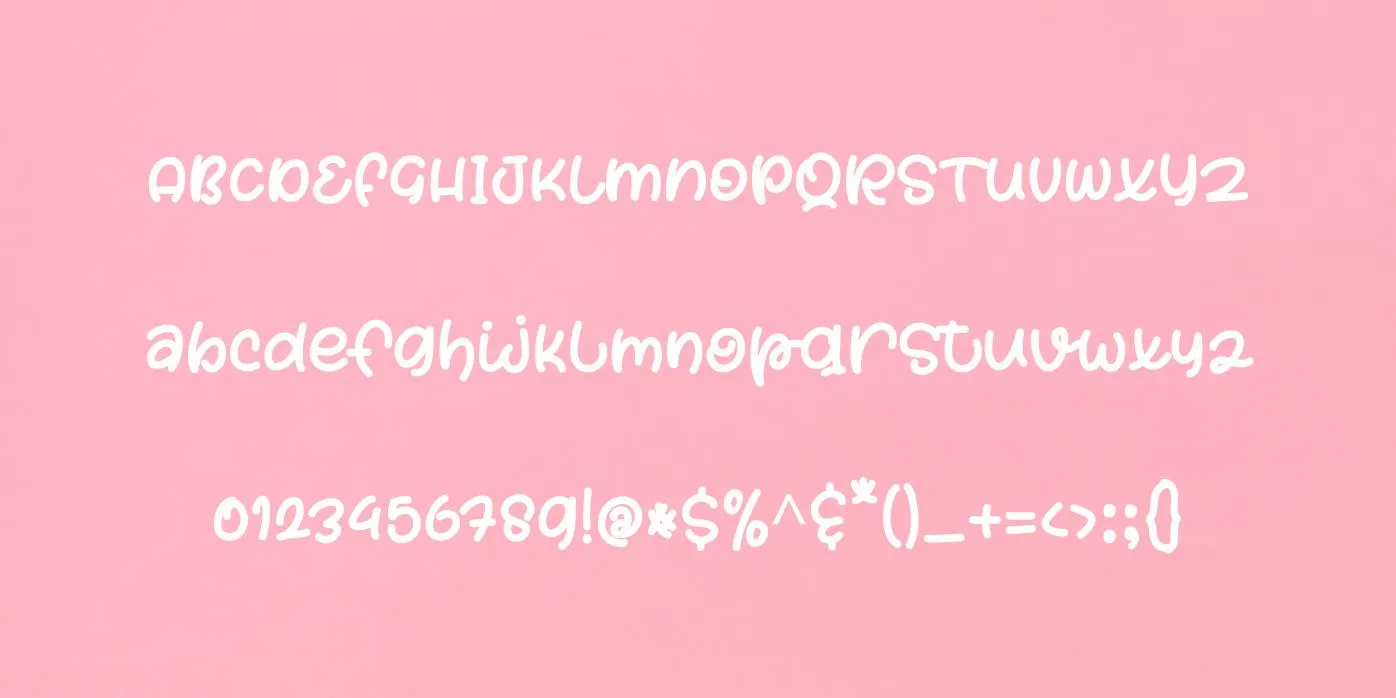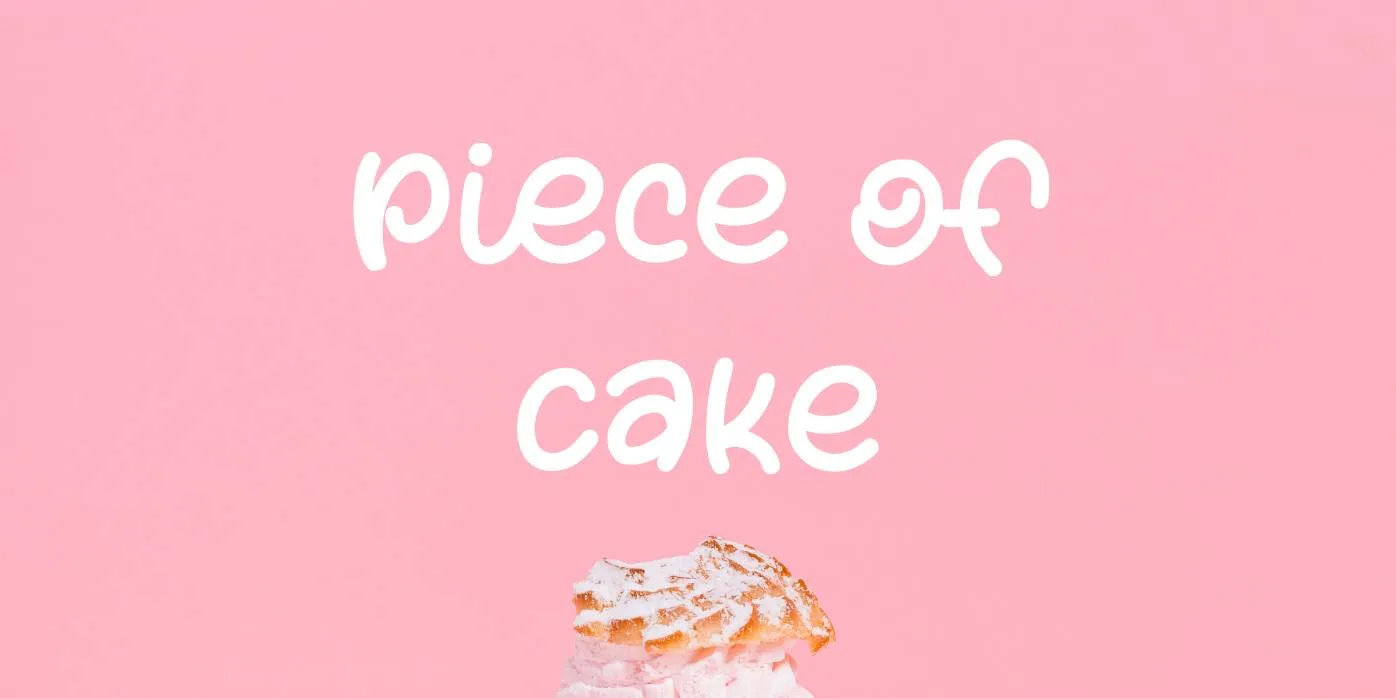
Piece of Cake Font
Here we discuss detailed information about Piece of Cake font. This is a very loveable and exciting font. It was designed by Muh Aswer At Azetype Studio. This stunning font was created by font creator 12.0 64-bit.
It falls under the version 1.00 Unicode supported by this font is 2.0 and BMP only. It has 205 characters, 204 glyphs, and 2048 units per Em. Embedding rights are allowed for permanent installation in this font. The Weight of the font is Medium (normal) and the Width is Semi-expanded.
It has curvy lines and the corners of the fonts are rounded, giving a very loveable look. It can be used for designing variable places logos. You can also use this font for product packing. It is a good choice for making designs for the advertisement of any kind of product like bakery items.
You can also use this font for making posters, banners, and all types of display projects. It can also be used for designing art and illustrators for many projects. This font is a good choice for making printing projects using this font. It has characters, symbols, numbers, capital and small letters, punctuations, and special characters.
It is a fancy and loveable font. What type of font is Piece of Cake Font? Piece of Cake font is a very loveable and exciting font. It was designed by Muh Aswer At Azetype Studio and is available in both OTF and TTF file formats.  Can I use Piece of Cake font in a logo?
Yes, It can be used for making logo designs for many projects with a very loveable look and amazing features. Who is the designer of the Piece of Cake font?  This is a very loveable and exciting font. It was designed by Muh Answer At Azetype Studio